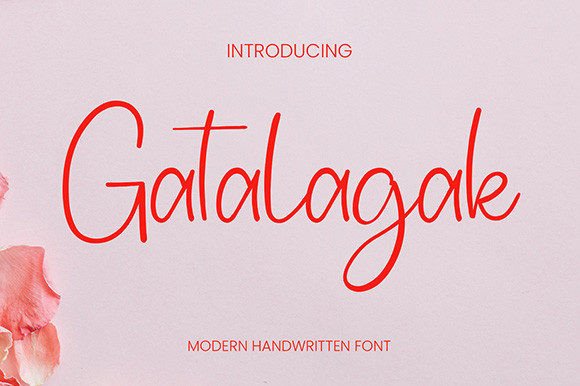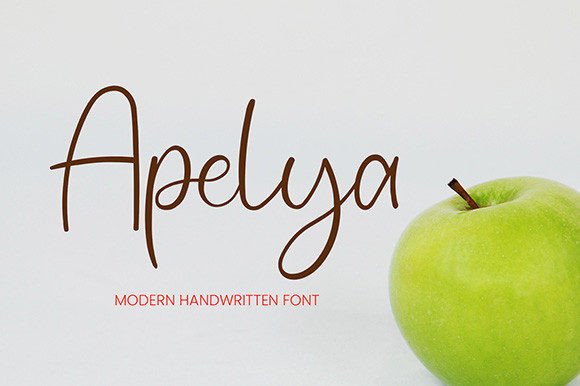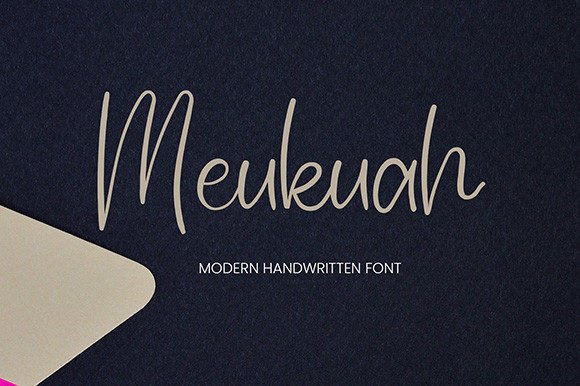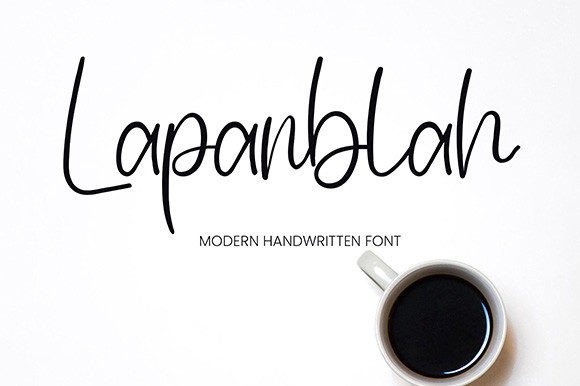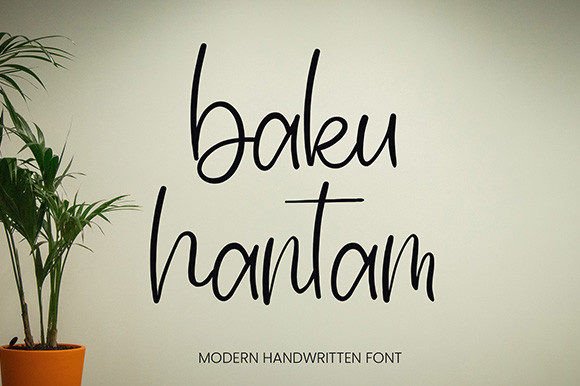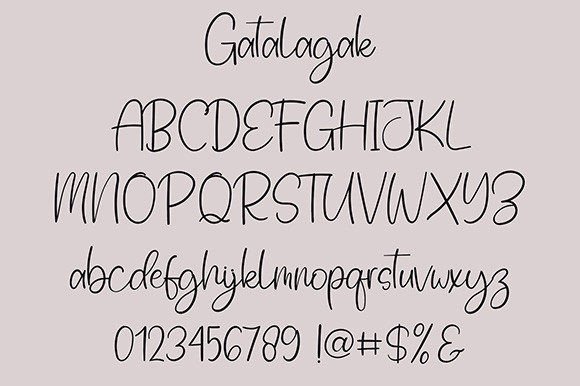
Gatalagak Font
A Delicate and Elegant Handwritten Script
Gatalagak is a refined handwritten font designed to bring elegance and sophistication to your creative projects. Each letter flows smoothly with graceful, balanced strokes that feel timeless and polished. The delicate shapes make this font perfect for designs that should feel soft, romantic, and professional.
Whether you’re working on branding, stationery, or special event materials, Gatalagak helps your text stand out with effortless style.
Gatalagak is a versatile font that adapts beautifully to many uses. It’s ideal for wedding invitations, save-the-date cards, and event signage. The flowing script instantly creates a romantic and memorable atmosphere.
Use Gatalagak for logos and branding materials. The clean, stylish curves add personality to your brand while keeping it professional and approachable.
This font also shines on product packaging, boutique labels, and handmade goods. Its elegant details help your products look premium and thoughtfully designed.
Gatalagak is perfect for social media graphics, blog headers, and Pinterest pins. No matter where you use it, the font delivers a polished, sophisticated look that draws attention.
The font includes uppercase and lowercase letters, numbers, and punctuation marks. Ligatures are included so your text flows naturally and feels cohesive.
Clear, Refined, and Easy to Read
Even with its decorative style, Gatalagak remains clear and legible at any size. The balanced spacing between letters ensures your text stays neat, whether you use it for large headlines or smaller captions.
Many designers like pairing Gatalagak with a clean sans-serif font for visual contrast. Use Gatalagak for main titles and the sans-serif for supporting text. This pairing guides the reader’s eye and helps layouts feel modern and organized.
To showcase Gatalagak’s elegant style, use soft backgrounds and neutral colors. Shades like ivory, blush, and warm gray let the delicate strokes stand out without distractions.
When designing wedding stationery or luxury packaging, consider adding subtle illustrations or watercolor textures to complement the refined feel. For social media and marketing, keep layouts minimal so the script remains the focus.
Think about the mood you want to create. Gatalagak is perfect for designs that should feel timeless, warm, and sophisticated.
Gatalagak is more than just a handwritten script. It’s a creative tool that transforms ordinary text into something beautiful and unforgettable. Its clean curves and balanced details bring personality and elegance to any project.
Adding Gatalagak to your font collection gives you a reliable option for all kinds of creative work. From weddings and branding to packaging and social media, this font adapts easily to your ideas.